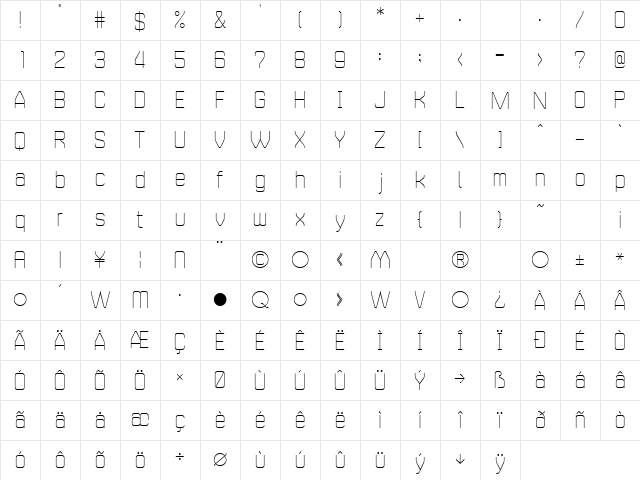
235MKSD UltraLightAl Font Preview
235MKSD UltraLightAl
Design Context for 235MKSD Typeface
235MKSD takes a measured approach to typography — its balanced proportions and neutral character make it a reliable workhorse for both digital and print work. The delicate stroke weight brings airiness and refinement to layouts.